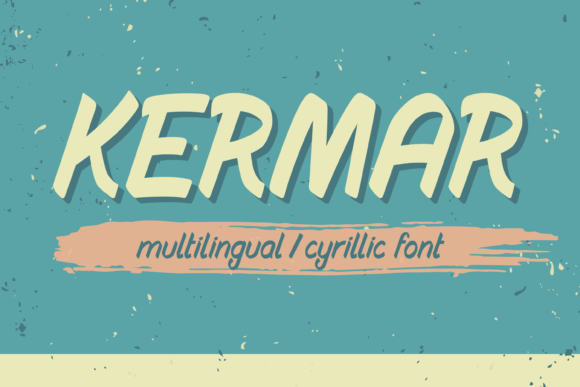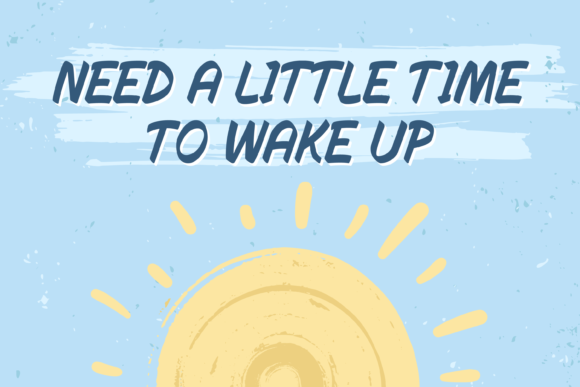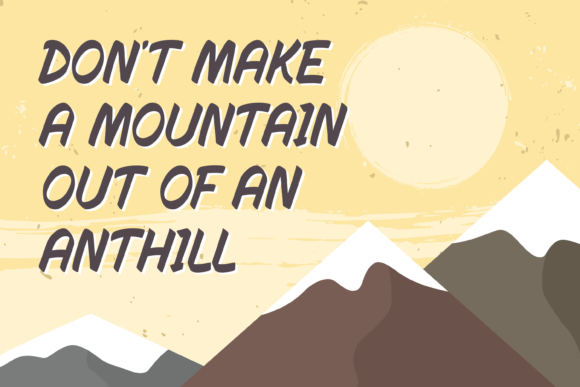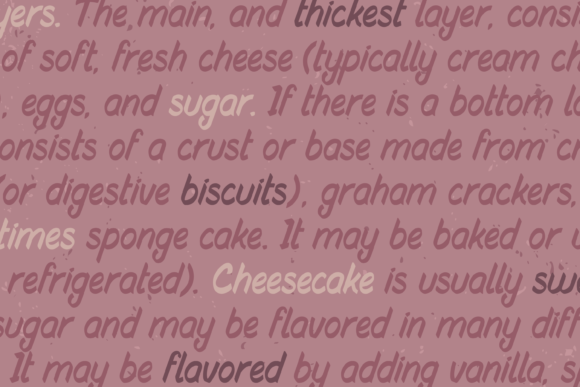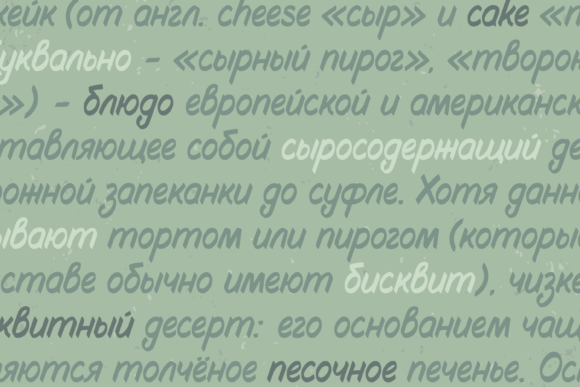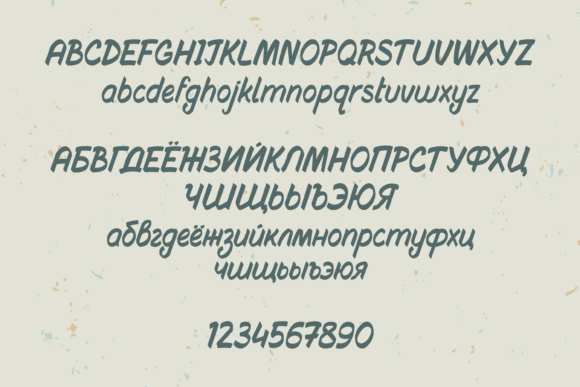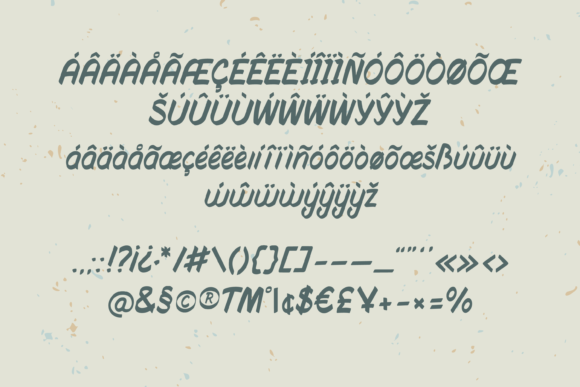
Kermar Font
About Kermar Font
Kermar is a sweet and simple handwritten font. Its natural and unique style makes it incredibly fitting to a large pool of designs. The only limit is your imagination!